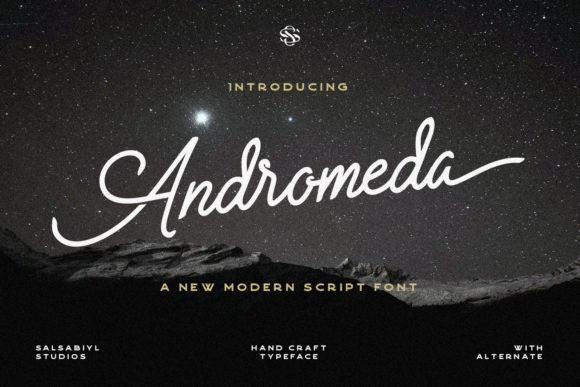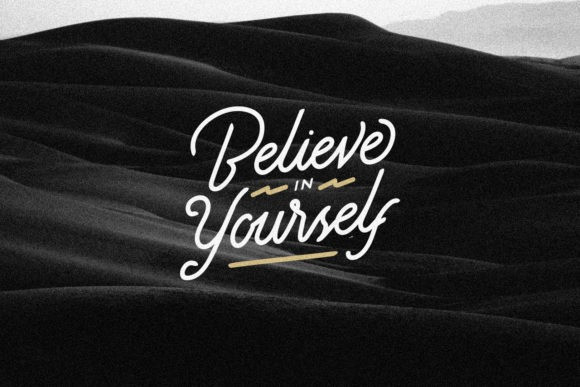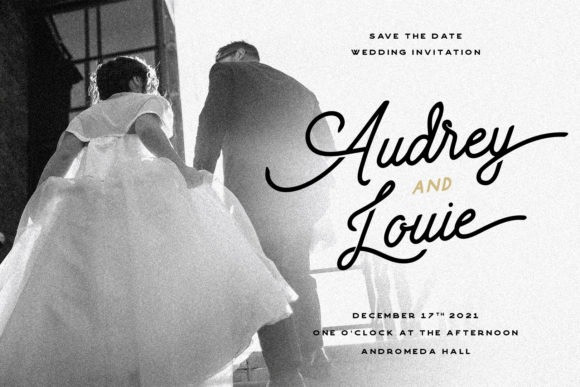
Andromeda Script Font
Andromeda is a modern and flowing handwritten font. Fall in love with its incredibly distinct and timeless style and use it to create spectacular designs! This font is PUA encoded which means you can access all of the glyphs and swashes with ease!